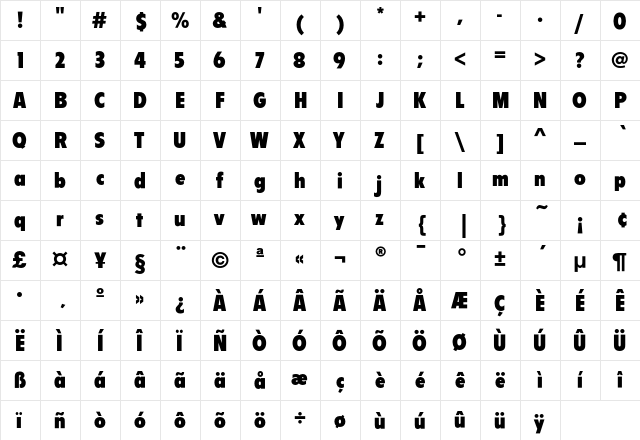
FlyerEF BoldCondensed
Design Context for FlyerEF Typeface
FlyerEF is a composed and adaptable typeface that performs quietly and consistently across a wide range of design contexts. Its bold stroke weight gives it real presence on the page. Its narrow stance lets it pack a punch even in space-constrained designs.
Pro Tip: Pair FlyerEF with a font of contrasting weight or personality to build a more expressive typographic hierarchy.